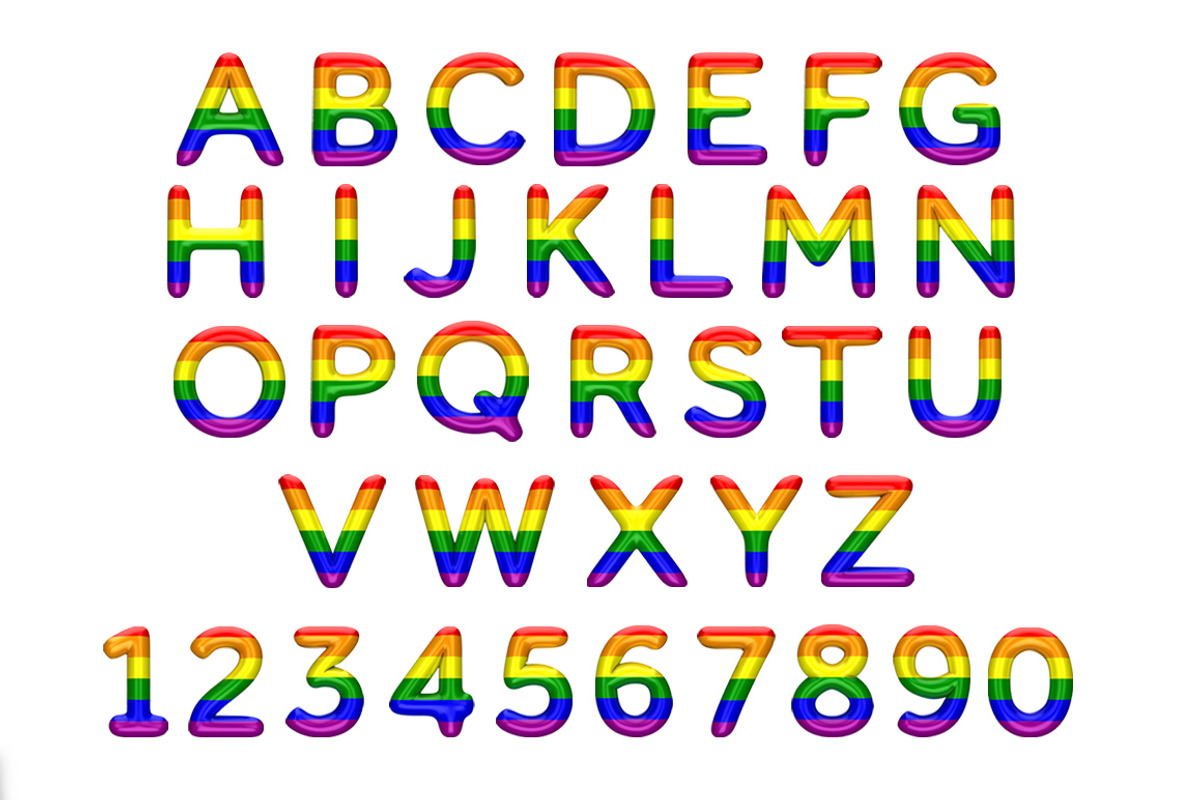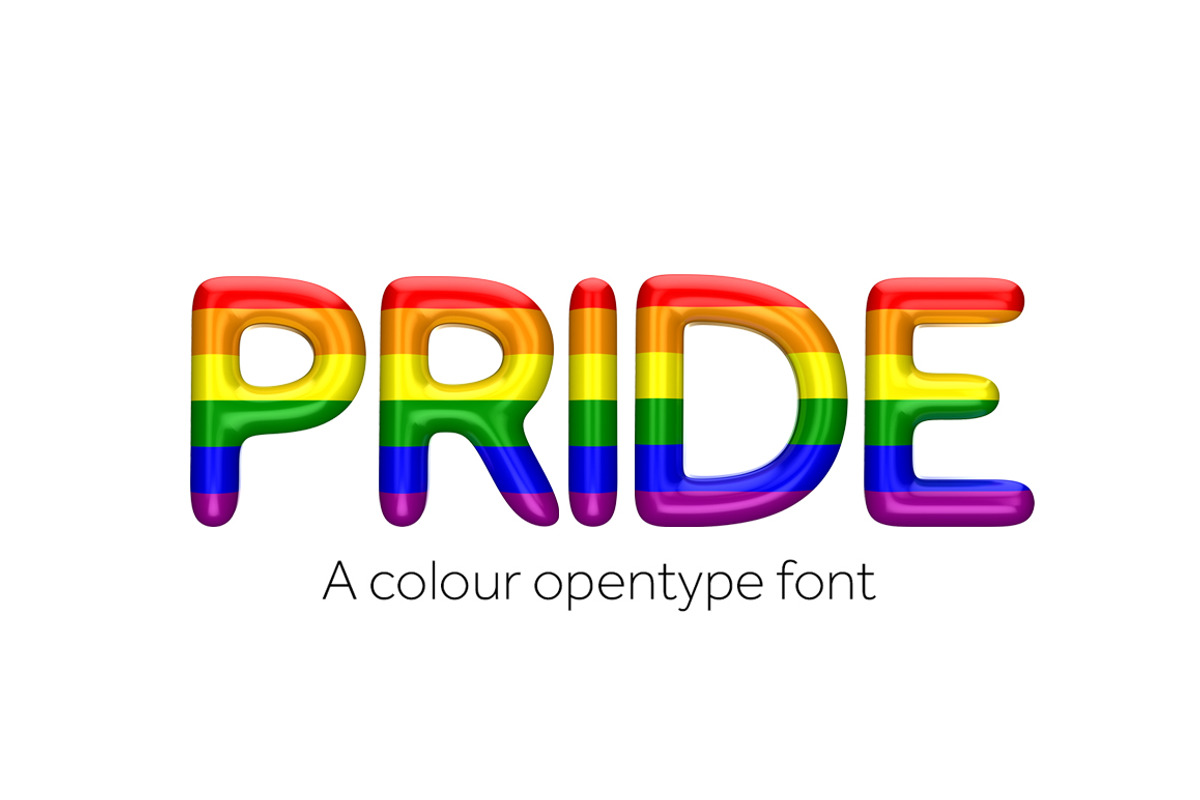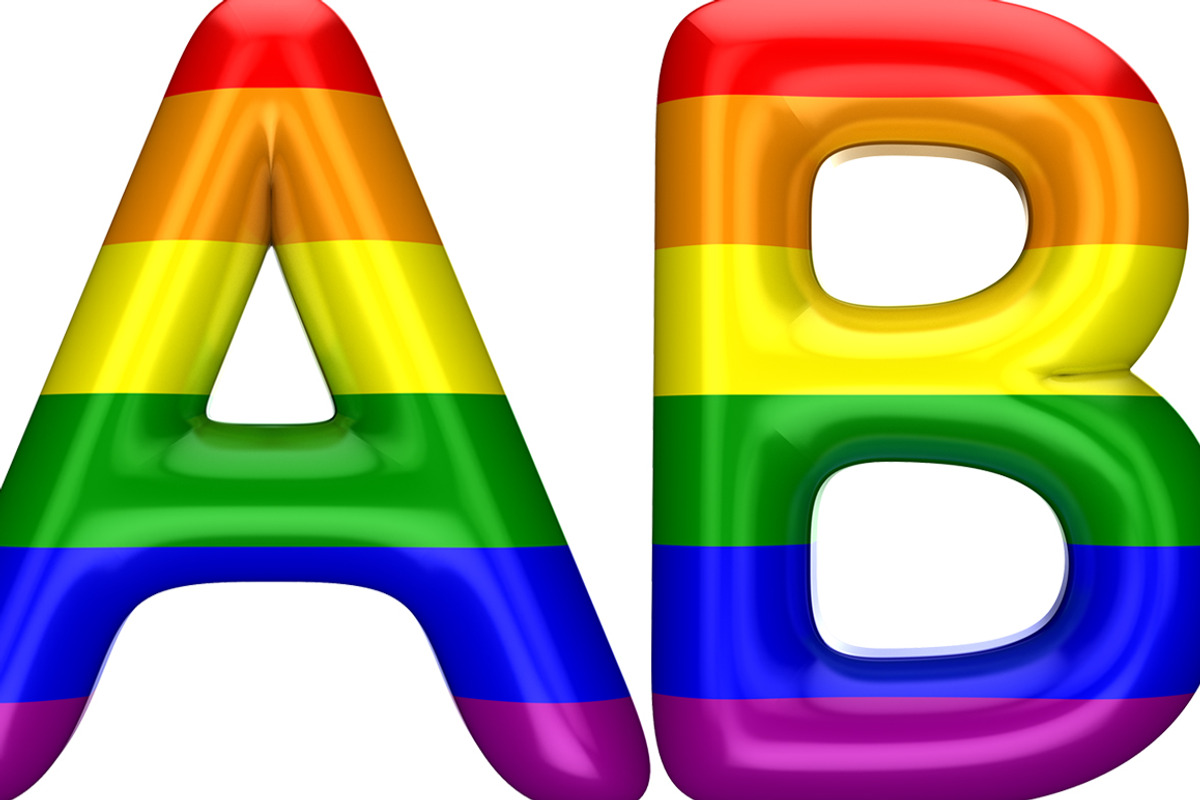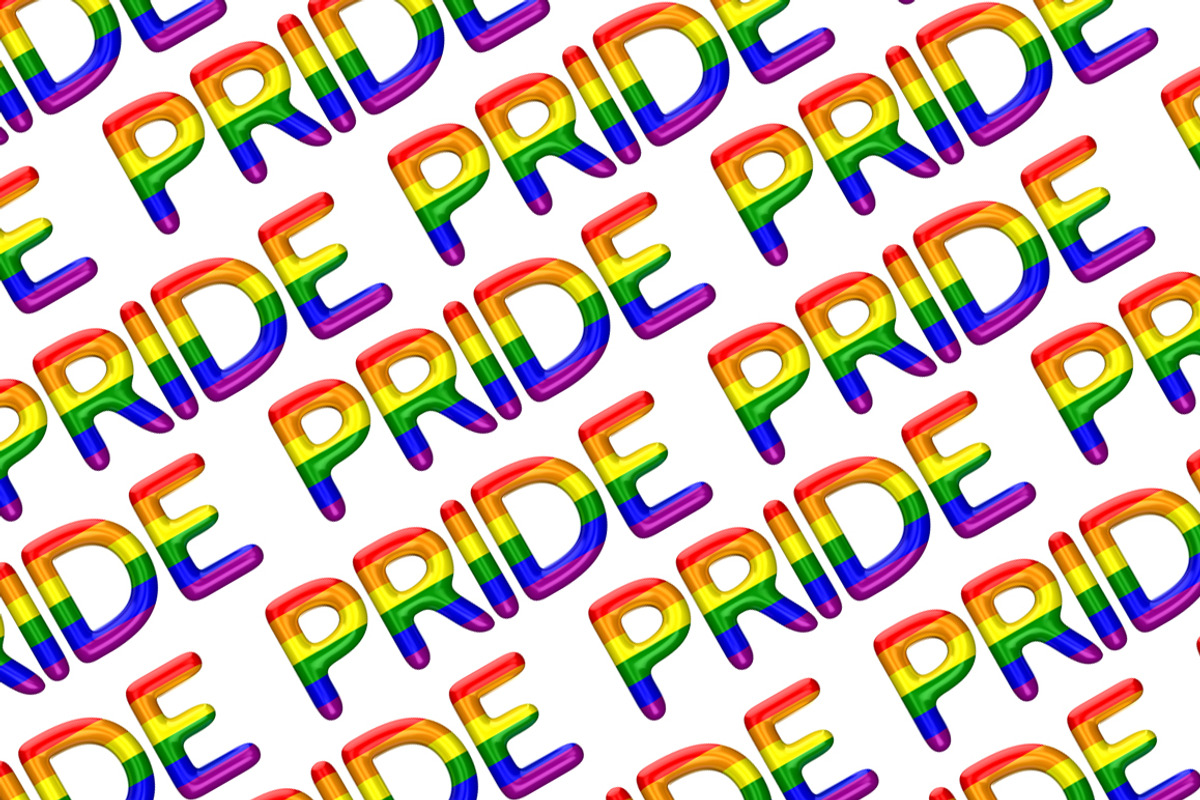
Pride font color open type font
PRIDE is a colour OTF font. Each letter has been created in 3D then turned into a simple to use font. Just download and start typing. Because the font is made from images they retain great detail and quality. With a lovely reflective sheen.
The font includes:
- Uppercase letters